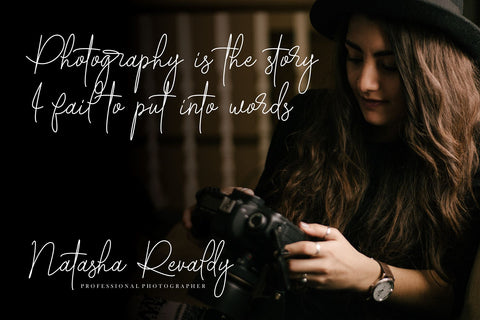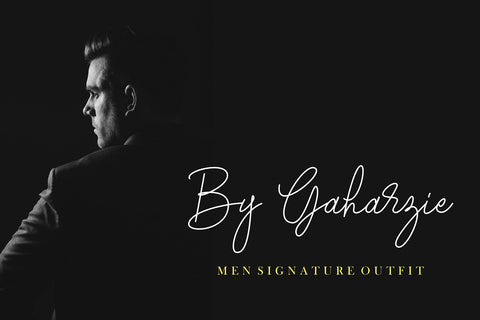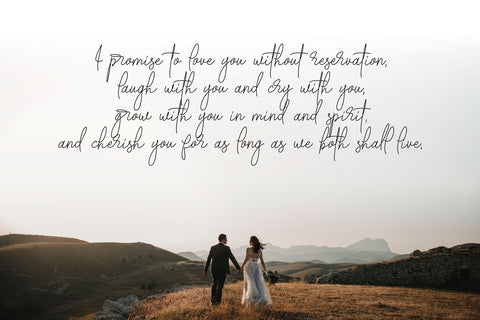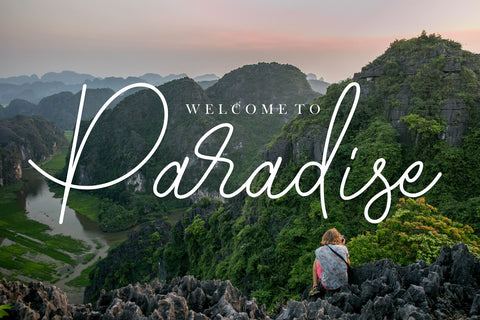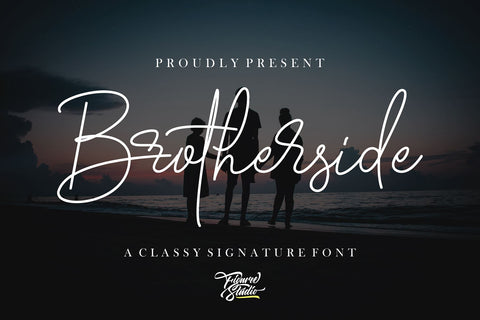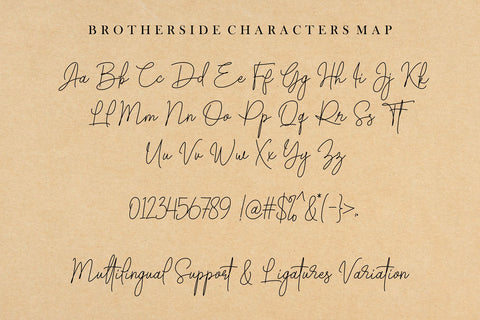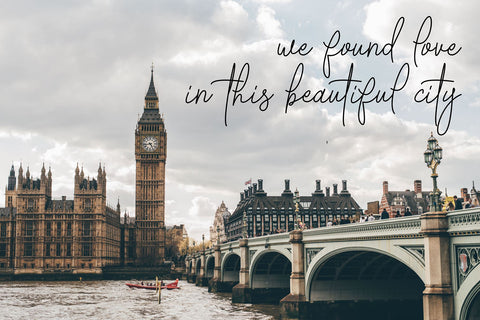
Brotherside Signature - Classy Signature Font
The Brotherside is a signature decorative font with which you can achieve a handwritten lettering feeling. This signature style is perfect for your modern graphic design needs. This font has a really nice flow so you use it in a large text if you want to give it a touch of personality. It can be used on social media content, for branding or packaging.
Also, The Brotherside Signature is the ideal typeface for organic product branding and packaging. Additionally, you can use Broterside signature romantic vibes for wedding invitation designs. Especially if you are looking for a font for Instagram quote posts or any other social media content, this typeface is for you!
- Numbers and Punctuation Marks
- Ligature